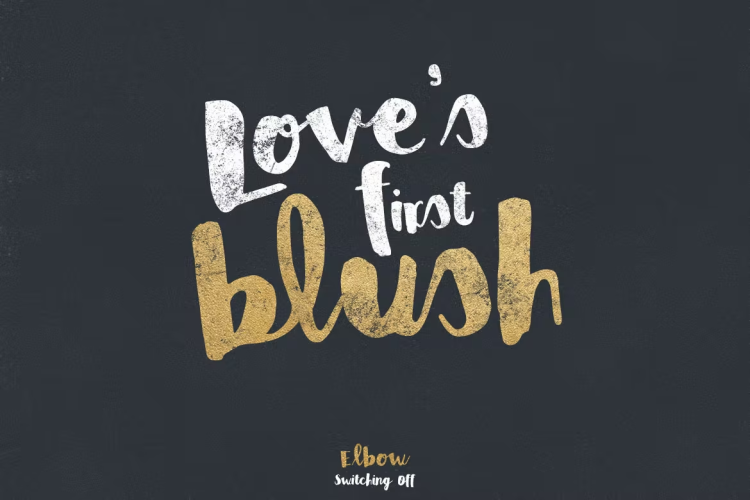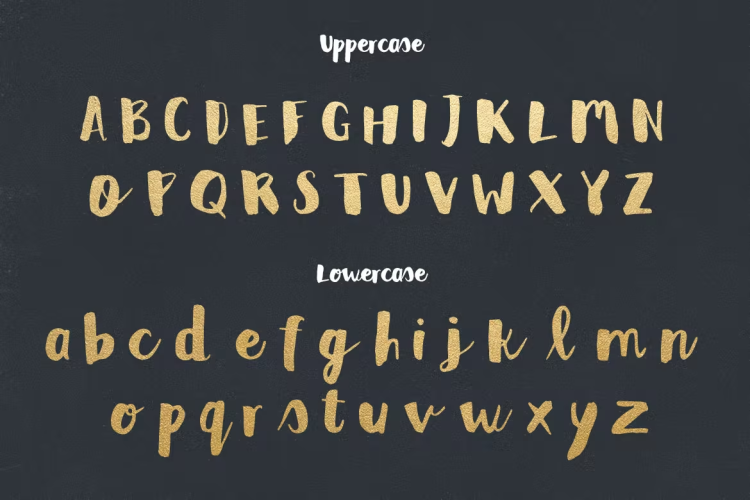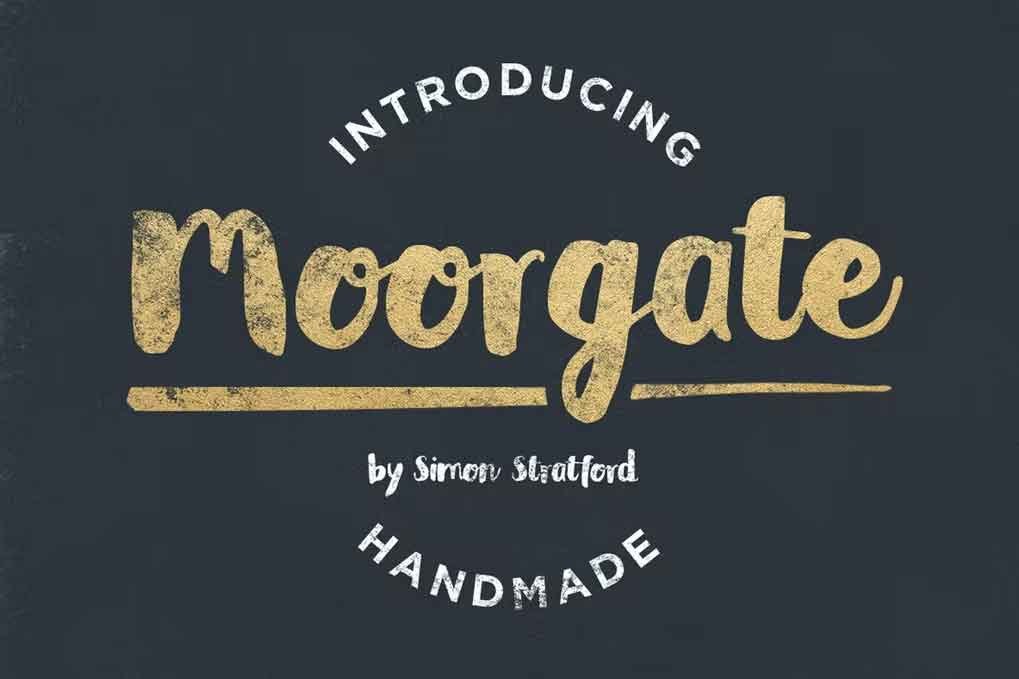
Moorgate Font
This is Moorgate a new 100% handmade brush script typeface, hand made with a real brush and ink pot. The font was mostly inspired by the hand drawn letters on the album Achtung Baby by U2. Made a big impression on me when it came out.
Click on the samples to see how all the characters look, as you can see the font looks best as a display face, at larger point size.
This font has alternative ligatures, the type preview window below never shows these properly. They make the font appear more realistic by switching out combination of letters.
In total, there are over 400 glyphs, uppercase, lowercase, numbers, punctuation and symbols. Included are support for Western, Central and South Eastern European characters.
A short phrase in Moorgate Font carries warmth that a typeset sans cannot fake; keep the rest of the card plain.
Chalkboard-style headings in Moorgate Font make a menu feel hand-made. Keep the dish descriptions in a simple face so prices stay readable.
One line of Moorgate Font over a photo is enough; the script carries the tone and the caption does the work.
It sits in the Script And Handwritten group and reads as brush, display, handwritten, music. That makes it a candidate wherever those qualities help: headings, packaging, social graphics and brand work. Set it at the size you plan to use before deciding.